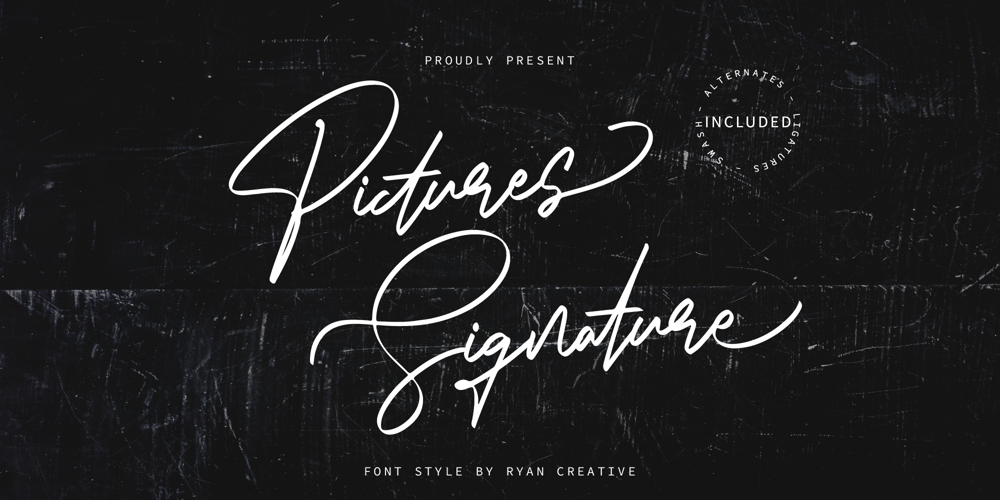
Pictures Signature Font Family was designed by ryan creative and published by ryan creative. Pictures Signature contains 1 styles and family package options. hello creatives. Introducing the latest fonts.Pictures Signature are designed to be inspired by a photo wall with signature-like inscriptions, giving a personal and exclusive impression. This typeface is characterized by steep, curved strokes, with some letters appearing to connect to each other as in handwriting. and is suitable for use in various media such as brand names, name logos, magazines, posters and other digital media.FEATURES Uppercase, lowercase. Support Foreign, Numbers and Punctuation. Alternative, Ligatures, Swash. Input Otf, ttf & Woff Files. Works on PC. Simple installation. Accessible in Adobe Illustrator, Adobe Photoshop. Adobe InDesign, it even works in Microsoft Word. Fully accessible without additional design software. Pictures Signatures are encoded with Unicode PUA, which allows full access to all additional characters without having to design any special software. Mac users can use the Font book, and Windows users can use the Character map to view and copy any extra characters to paste into your favorite text editor/app.thank you for visiting 😉